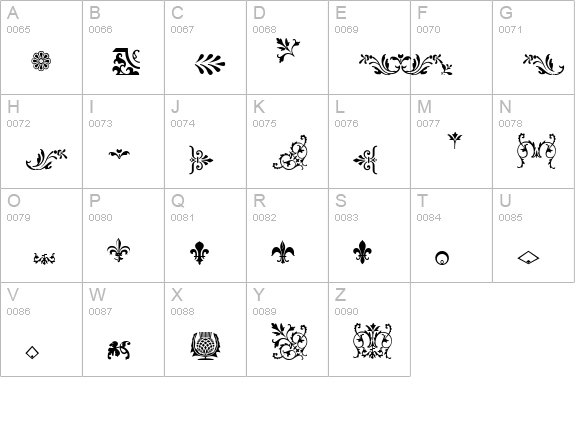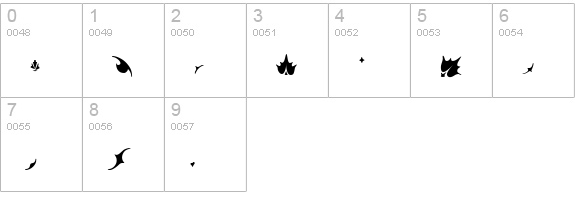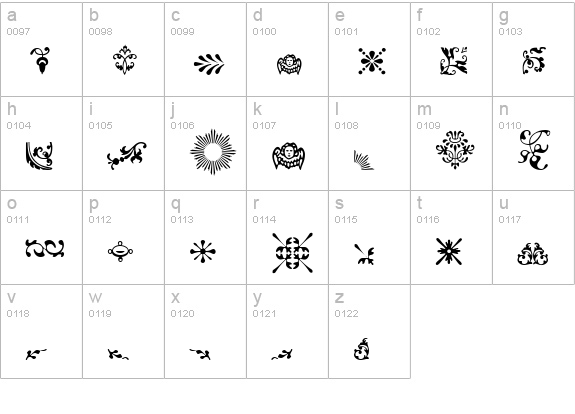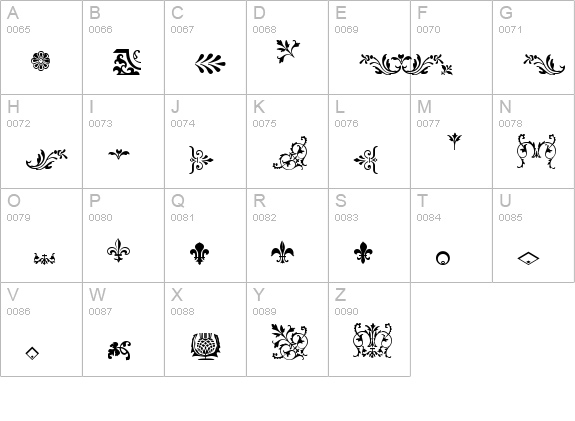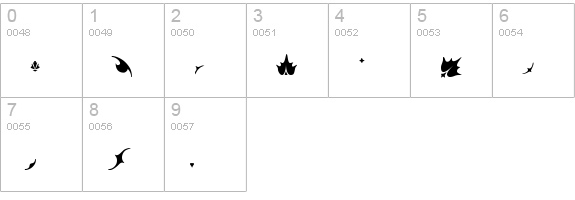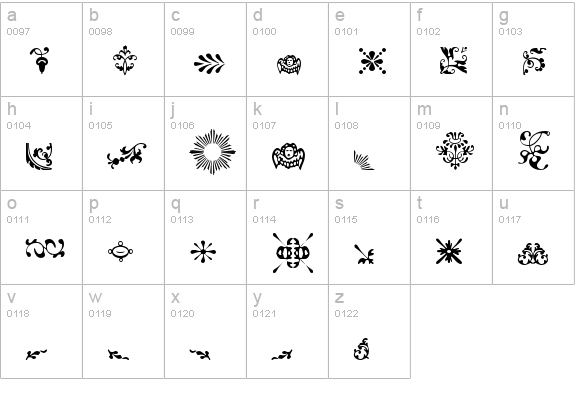
Fleurons A Font Details
Fleurons A is a beautifully designed decorative font that exudes elegance and sophistication. With its intricate floral motifs and delicate details, this font adds a touch of charm to any project. Fleurons A is perfect for creating invitations, wedding stationery, logos, and more. The best part? Fleurons A is free to download at FontsMarket.com! This means you can easily access this stunning font and incorporate its unique style into your designs without any cost. Don't miss the opportunity to enhance your projects with the timeless beauty of Fleurons A. Download it now and let your creativity flourish!